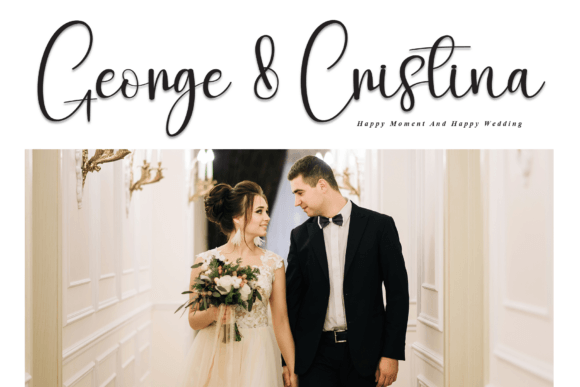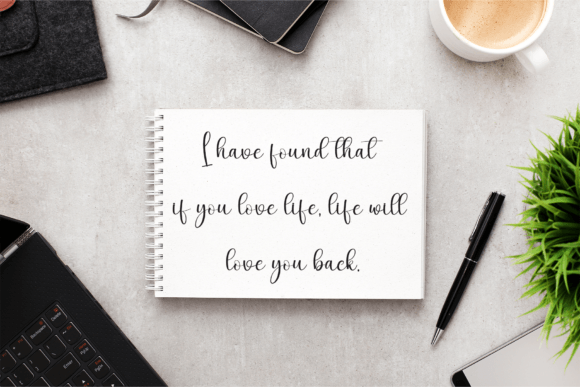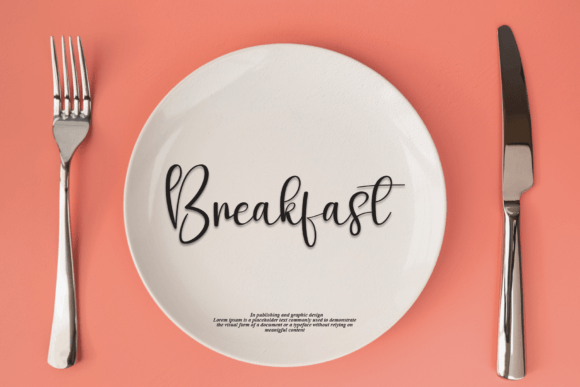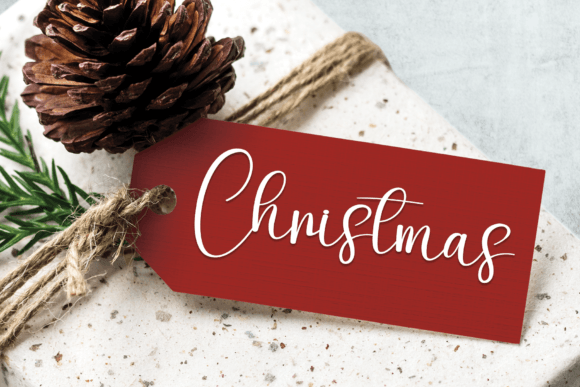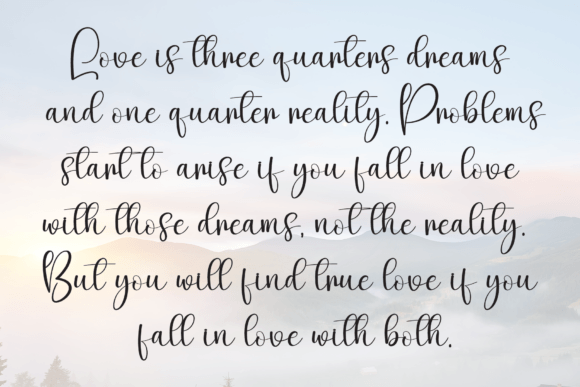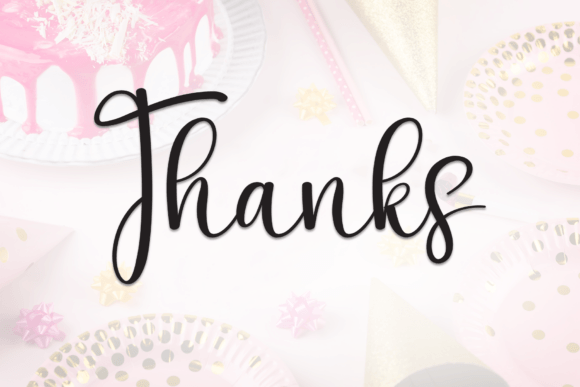
Introduction to Delight Birthday Font
Delight Birthday is a stylish and incredibly elegant script font.
Why Choose Delight Birthday Font?
Delight Birthday Font offers exceptional quality and versatility, making it a valuable addition to your design toolkit. Whether you’re creating for personal projects or commercial use, Delight Birthday Font delivers professional results.